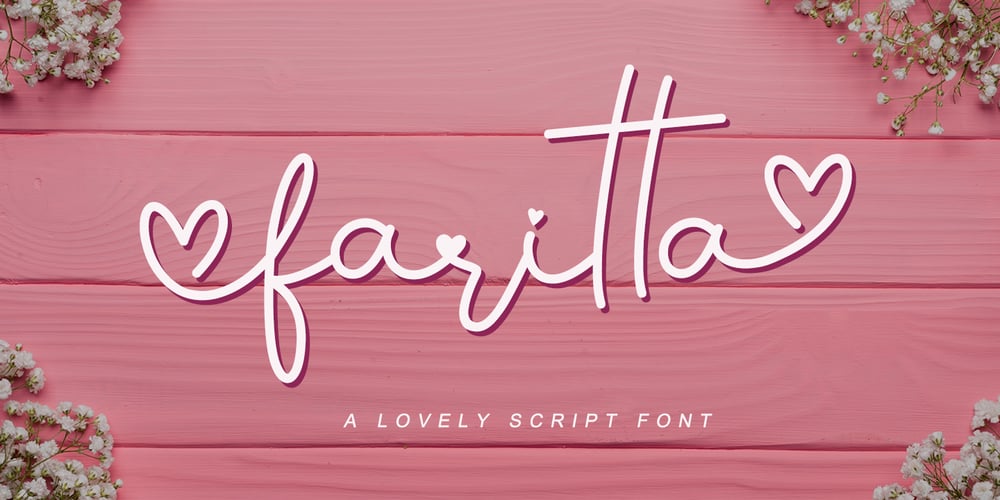
Faritta
Faritta font
Faritta Font Family was designed by Agung Eko Nugroho and published by AEN Creative Studio. Faritta contains 1 styles and family package options. Faritta is a great font for your projects. It’s a beautiful, elegant, yet casual and simple font script featuring a natural look & feel. Faritta is perfect for logos, wedding invitations, posters, social media posts, signatures and much more!